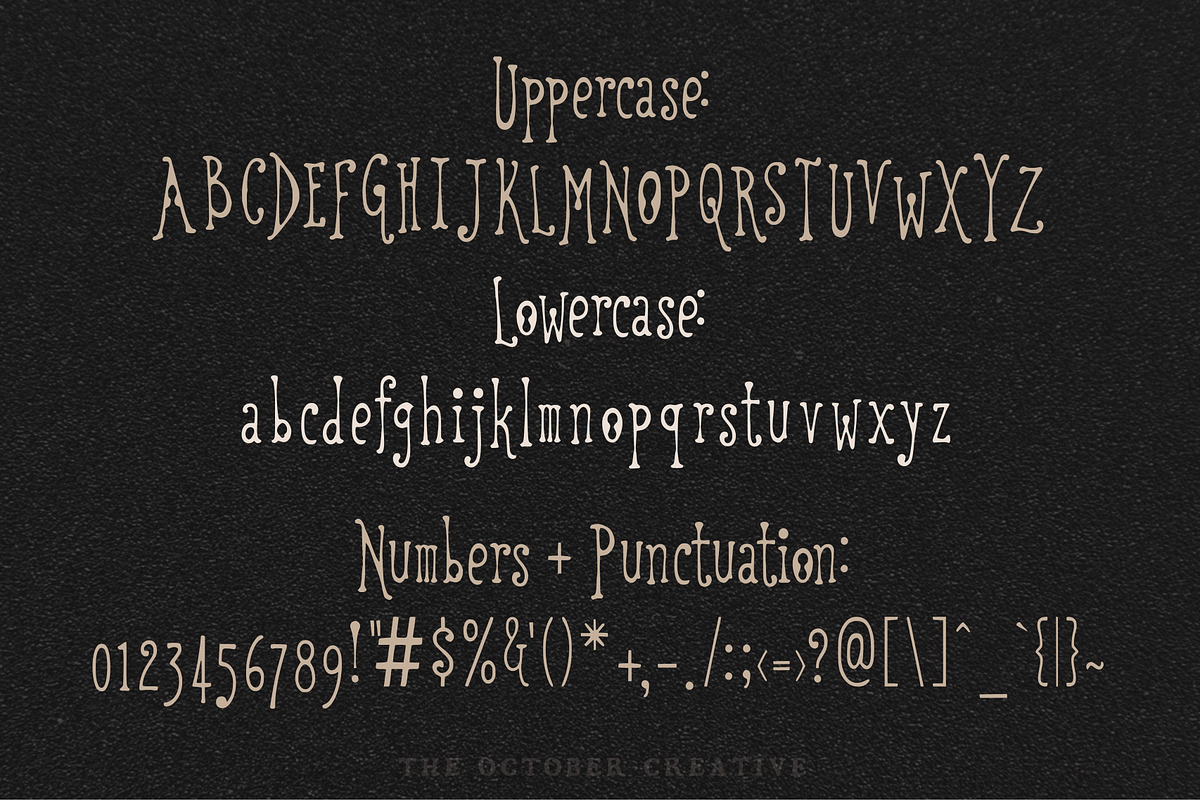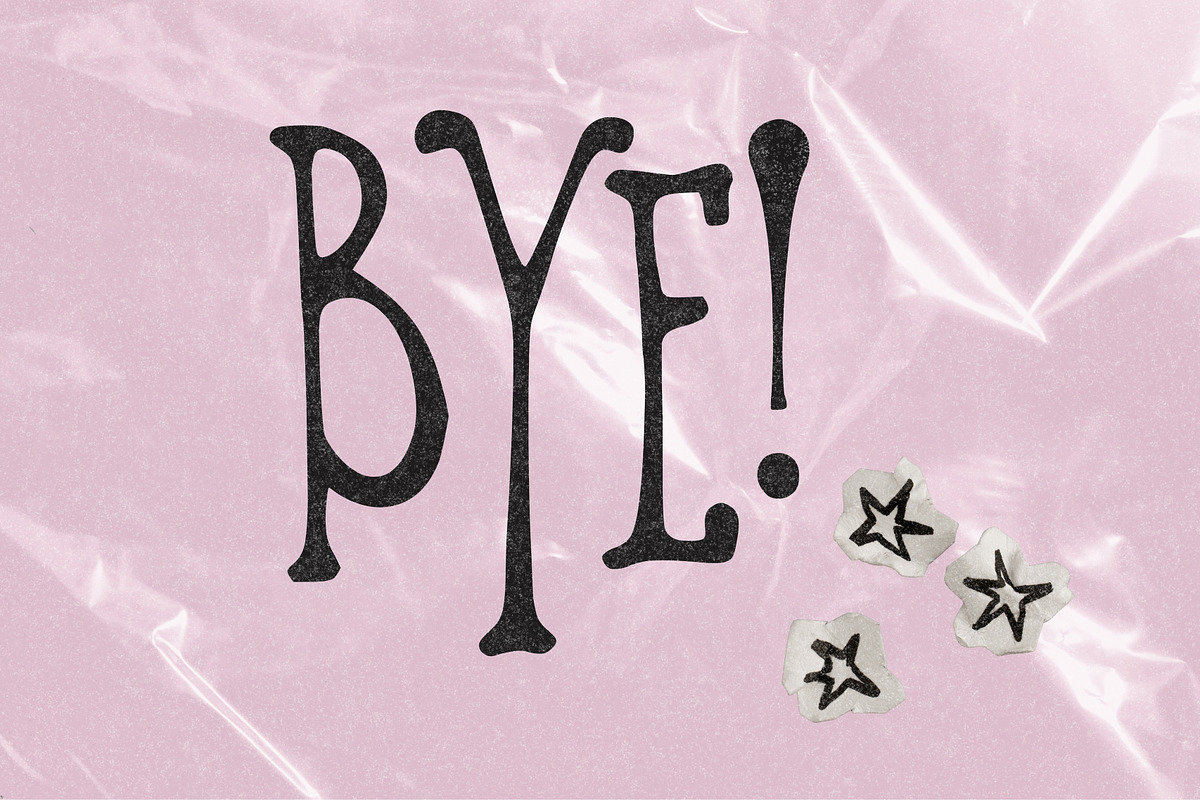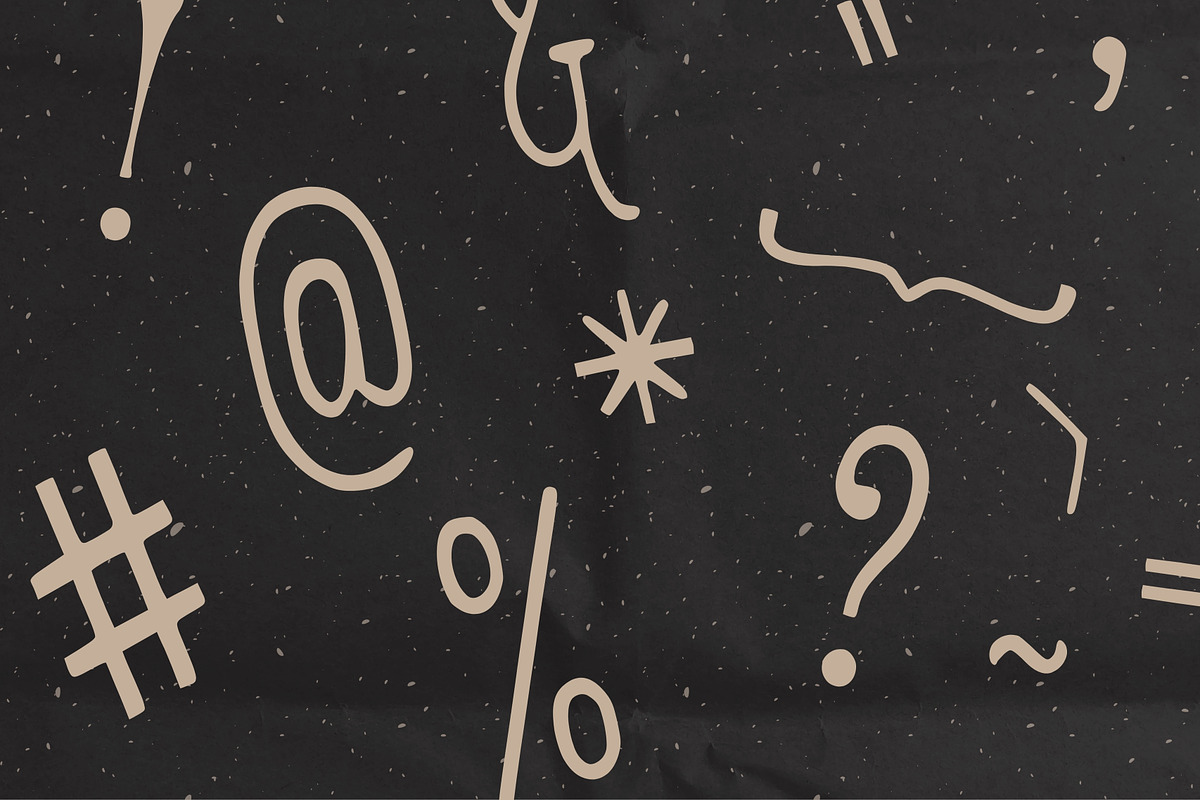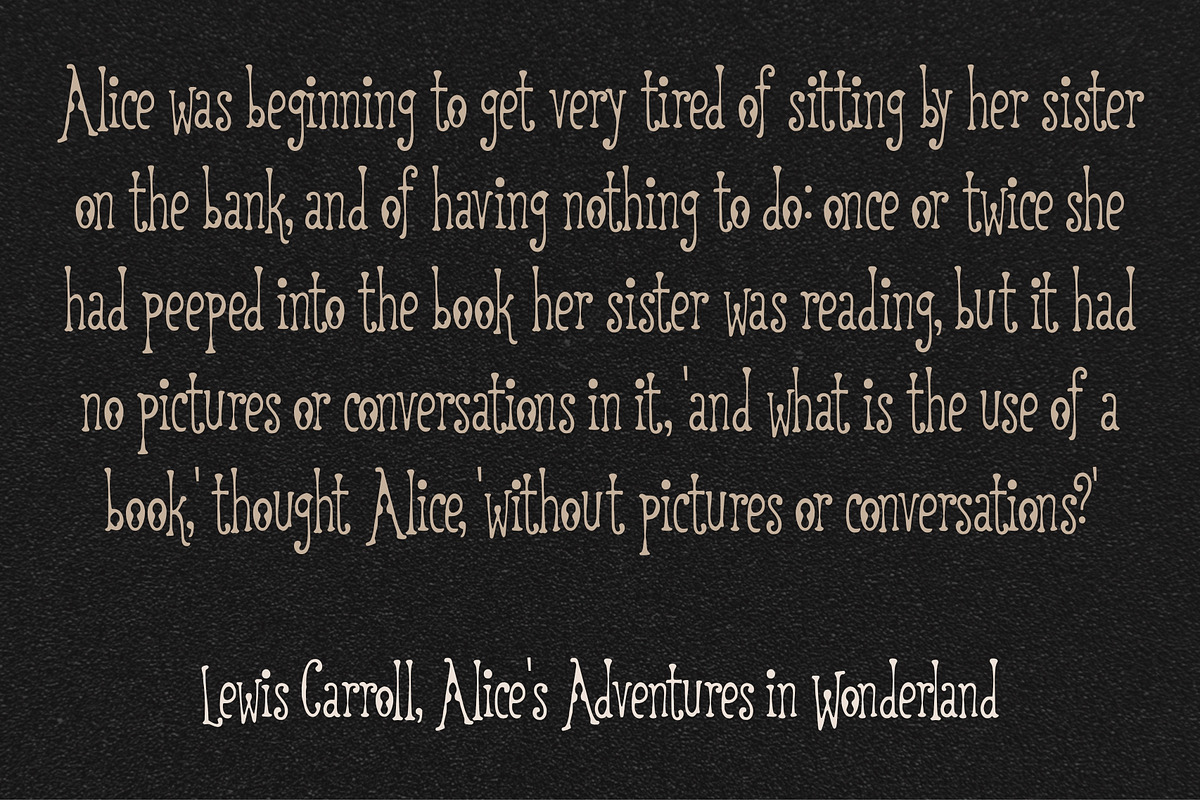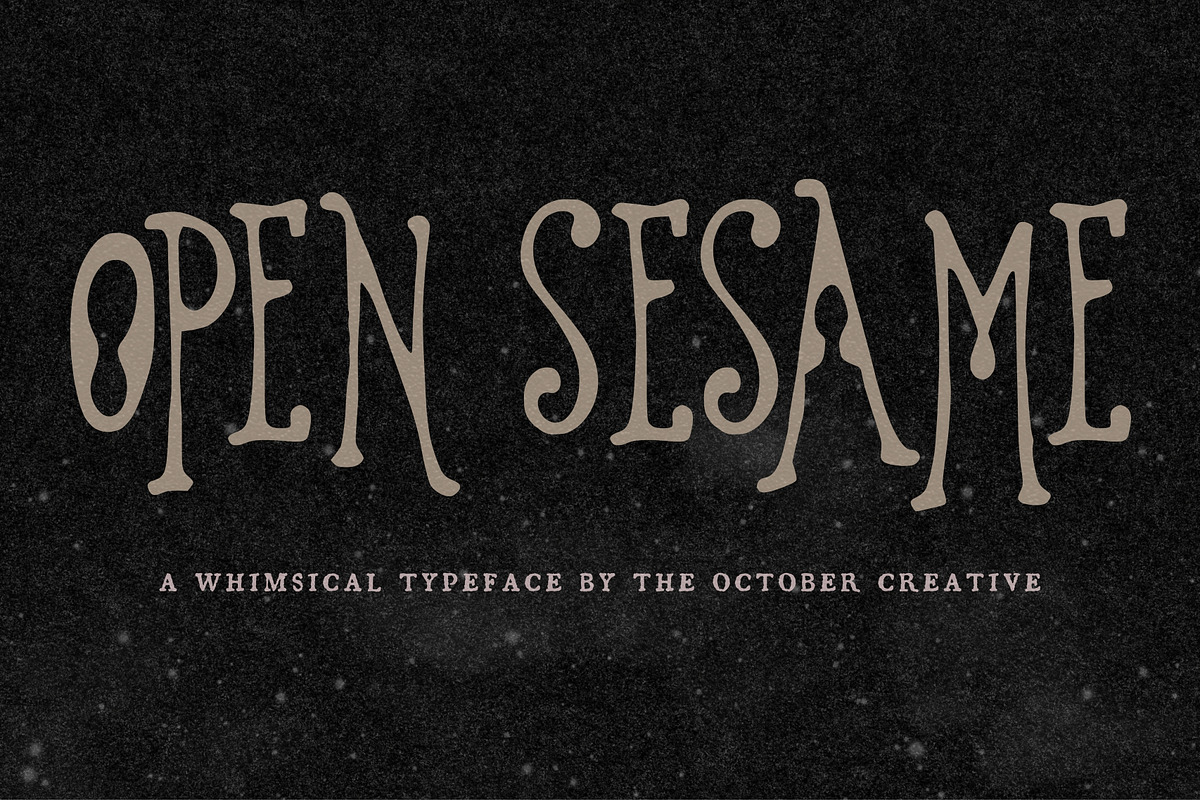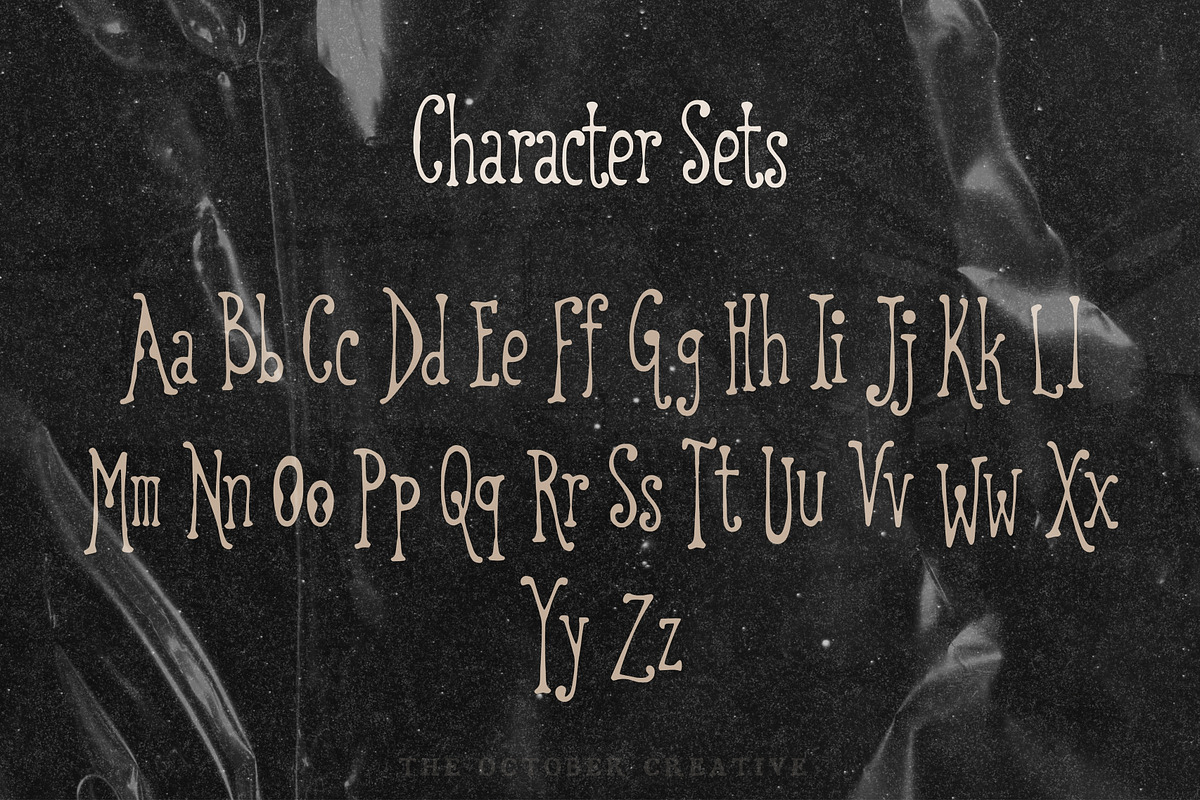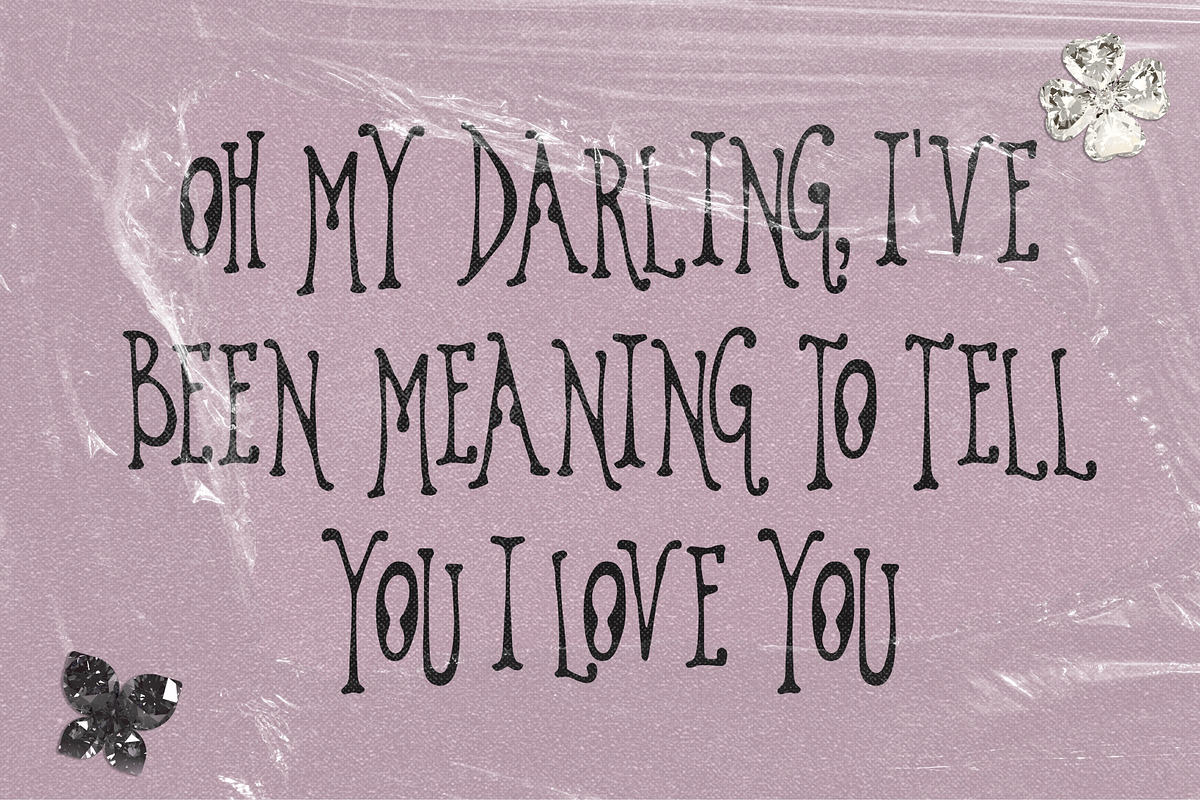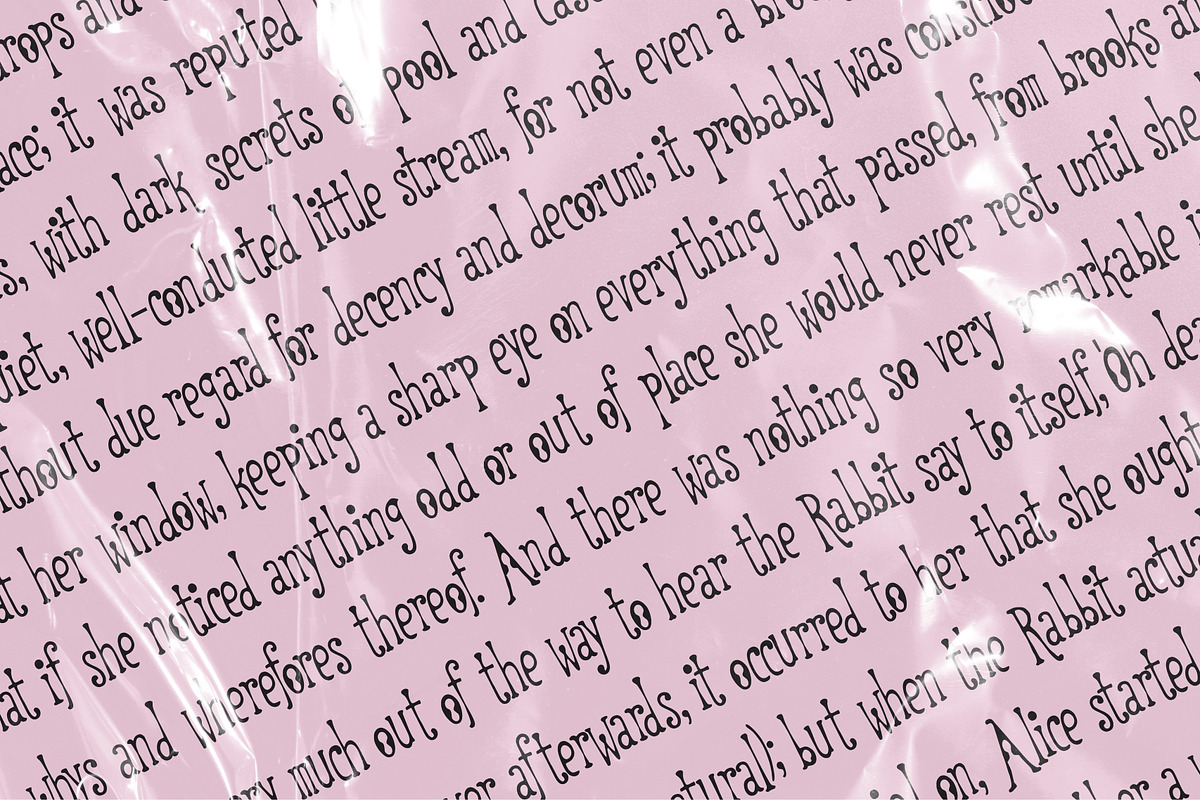
Open Sesame Retro Display Font
Open Sesame is a retro display font with medium-weight rounded letters, slight condensing, and generous counters, so it still reads in a paragraph. It fits children's book titles, chapter headings, reading nook prints, and classroom signage.
CHARACTER SET
Uppercase A to Z, lowercase a to z, numerals 0 to 9, and every standard keyboard punctuation mark and symbol: ! " # $ % & ' ( ) * + , - . / : ; < = > ? @ [ \ ] ^ _ ` { | } \~
Curly quotes and apostrophes (‘ ’ “ ”), en and em dashes, an ellipsis, and a bullet.
Accented letters: À Á Â Ã Ä Å Ç È É Ê Ë Ì Í Î Ï Ñ Ò Ó Ô Õ Ö Ù Ú Û Ü and their lowercase forms.
LANGUAGES SUPPORTED
English, plus the accented vowels, Ñ, and Ç used in names and everyday words in Spanish, French, Italian, Portuguese, German, and Dutch. Not included: ß, Æ, Ø, Œ, and the upside-down ¿ and ¡.
SPECIAL CHARACTERS